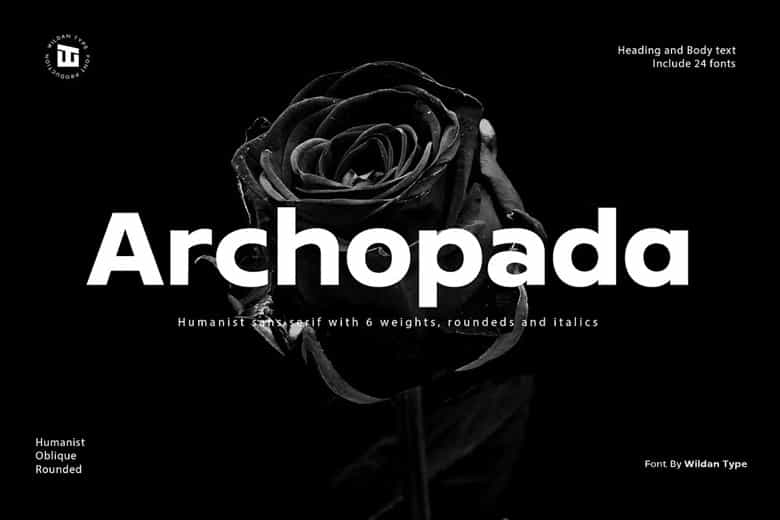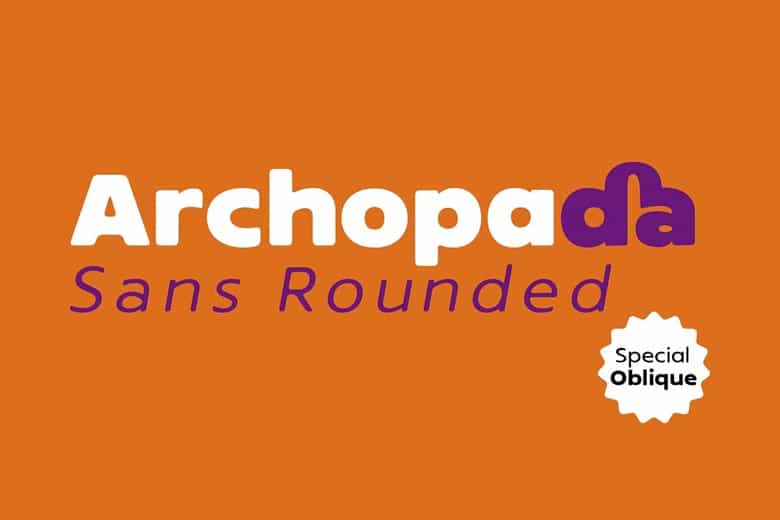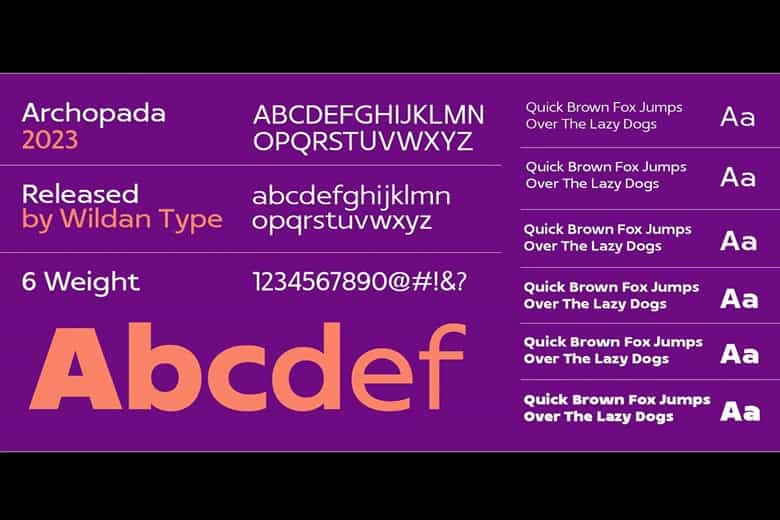
Archopada is a new, humanistic, highly vocal sans serif font family with the reduced line weight. Based on geometric and fun fonts that are inspired by the classics. This font is great for giving your portfolio or website, magazine, branding, id card, and more a title, but it can also be used for the text in a longer paragraph.